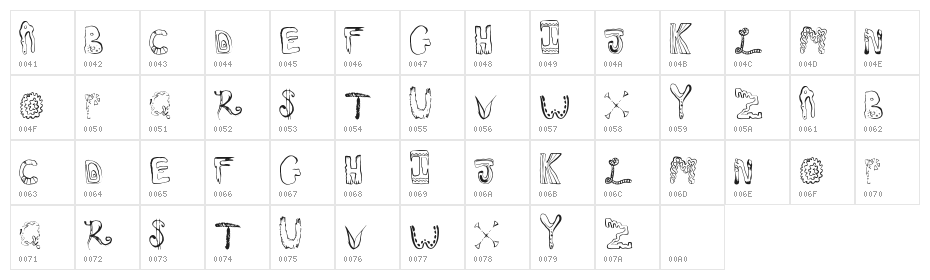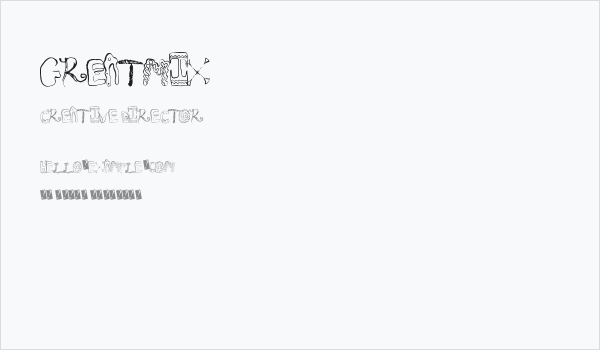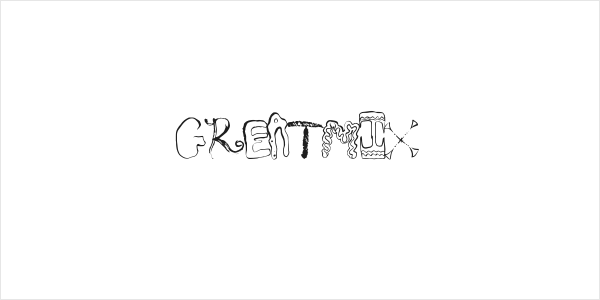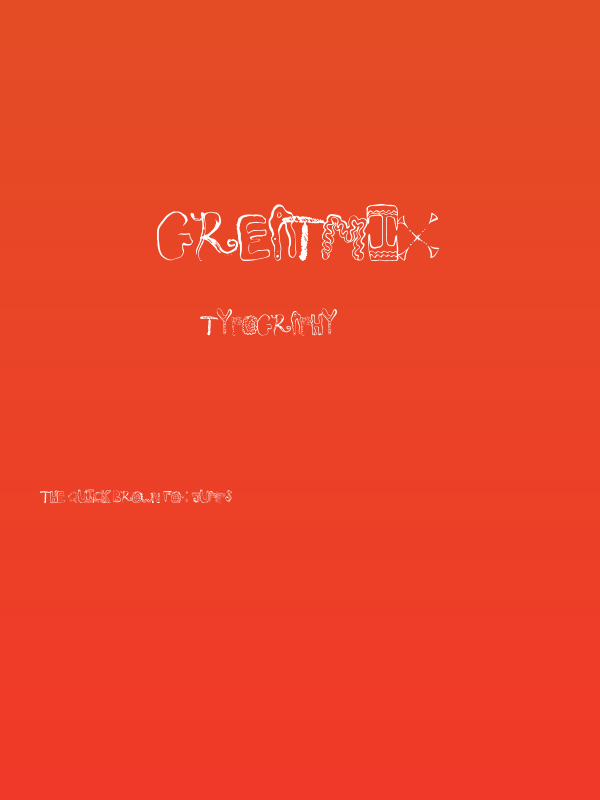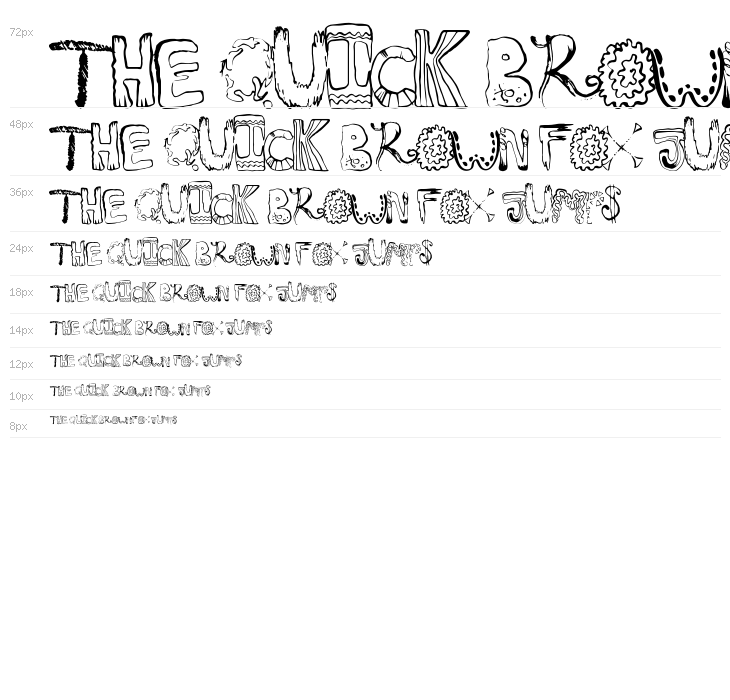
GreatMix Font
GreatMix Description
This font is a highly creative and eclectic mix of styles, with each letter exhibiting a unique and playful design. The uppercase letters feature a variety of textures and patterns, ranging from wavy and fluid to geometric and structured. The lowercase letters continue this theme, with each character presenting a distinct artistic flair. The numbers and special characters are equally diverse, adding to the font's whimsical and imaginative nature. This font is perfect for projects that require a bold and unconventional aesthetic, making it ideal for eye-catching designs.
| Proposed Projects | Ideal for creative projects such as posters, album covers, children's books, and artistic branding. |